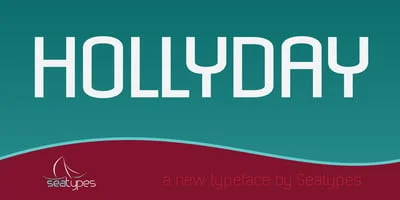
Hollyday Font
Hollyday Font is ideal for festive design applications including holiday greeting cards, seasonal marketing campaigns, celebration event invitations, party planning materials, gift packaging design, festive restaurant menus, holiday retail promotions, and joyful community events. This cheerful typeface captures the warmth and excitement of holiday celebrations through spirited letterforms that embody festive joy and seasonal happiness.
What makes Hollyday Font exciting is its delightful ability to evoke the magical spirit of holidays and celebrations through letterforms that burst with festive energy and seasonal charm. The font features playful characteristics with cheerful curves and celebratory details that instantly communicate joy and holiday excitement. Its festive character appeals to audiences who embrace celebration, family traditions, and the special magic of holiday seasons.
The Hollyday Font family includes various celebration-inspired styles such as Regular, Bold, Light, and decorative alternates with festive flourishes that enhance the holiday aesthetic. These joyful options provide comprehensive design solutions for creating authentic seasonal brand identities that celebrate holiday traditions and festive occasions.
This distinctive holiday typeface brings genuine festive authenticity to contemporary design projects. Event planners and seasonal businesses choose Hollyday Font for its exceptional ability to communicate celebration and holiday joy. The font's festive inspiration makes it perfect for holiday retailers, event venues, and seasonal service providers that want to convey holiday magic and celebratory excitement. Its cheerful character ensures memorable brand recognition while maintaining the authentic aesthetic that defines exceptional holiday-focused design work.